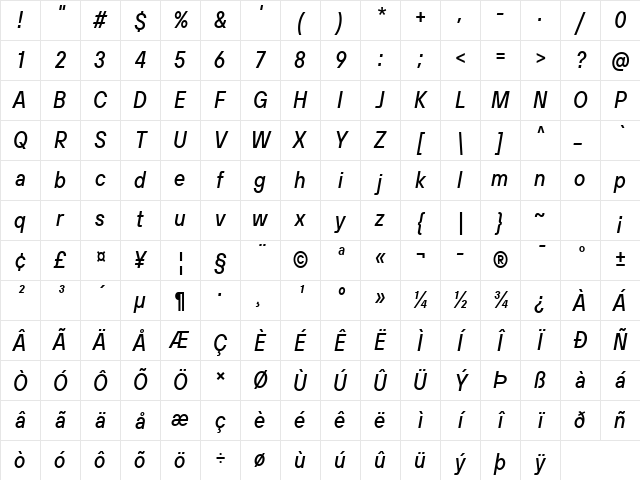
TT Hoves Pro Trl Cnd is a composed and adaptable typeface that performs quietly and consistently across a wide range of design contexts. The slanted form adds forward momentum and visual energy.
Pro Tip: Use TT Hoves Pro Trl Cnd for emphasis, pull quotes, and subheadings where its slanted energy can add rhythm to the layout.